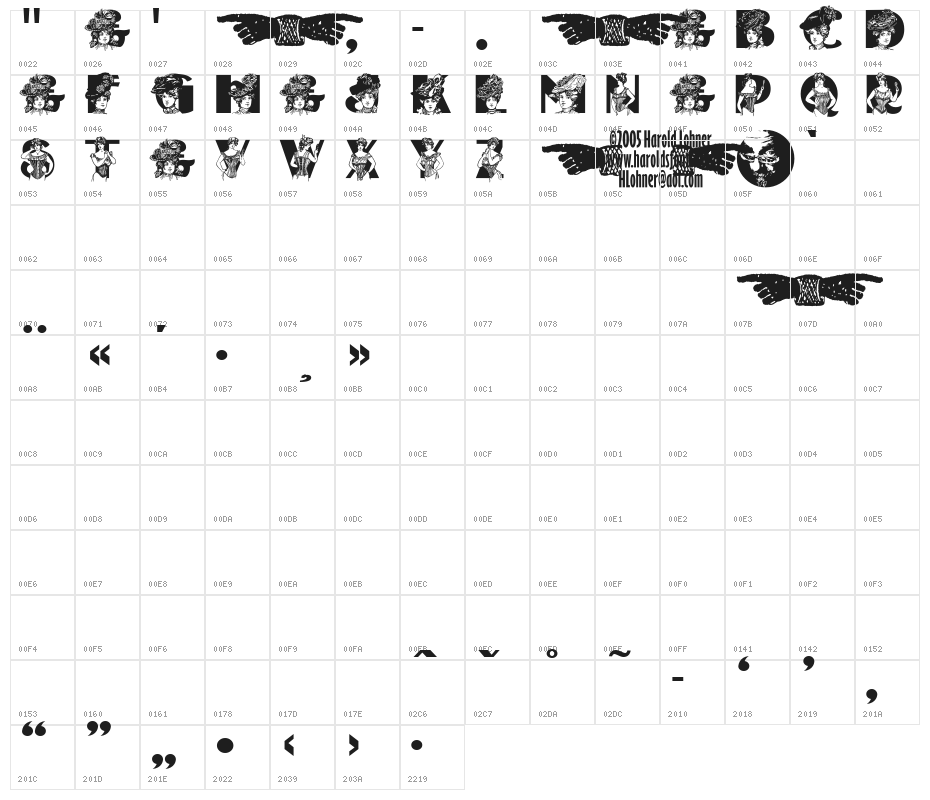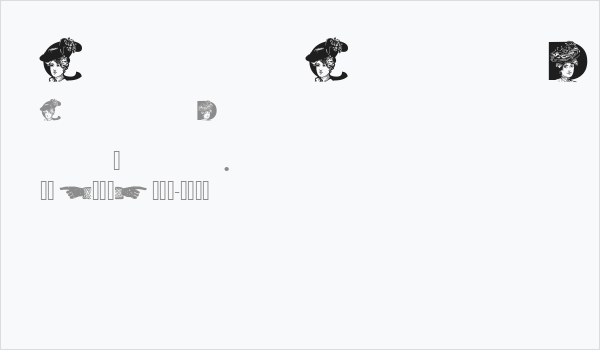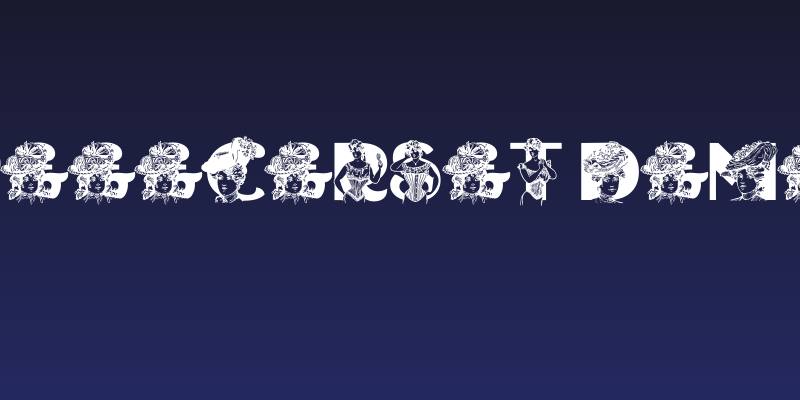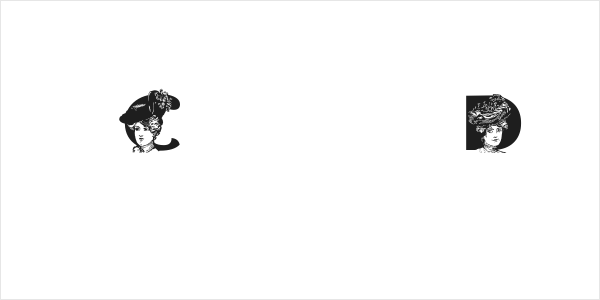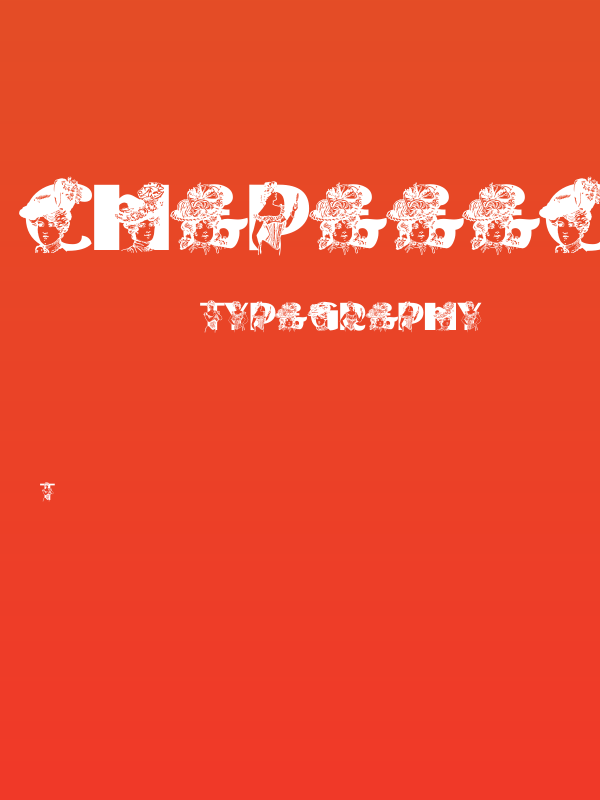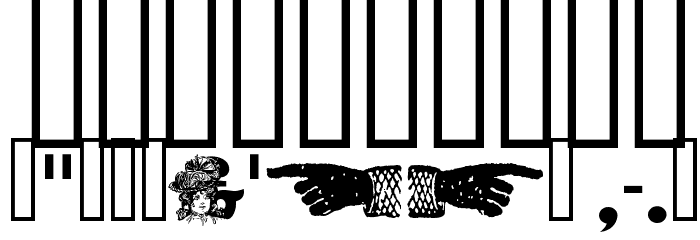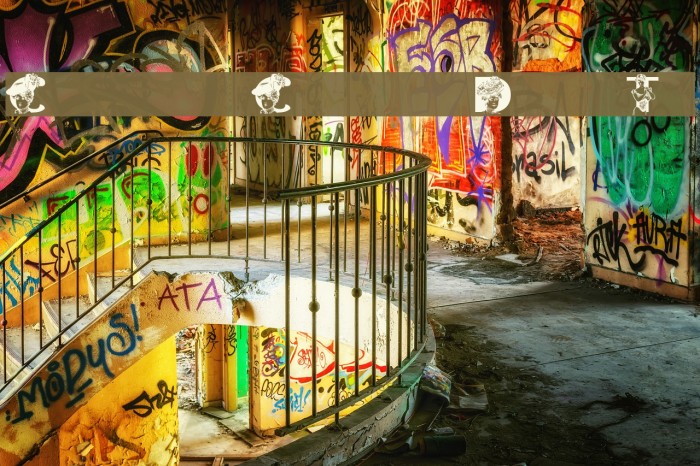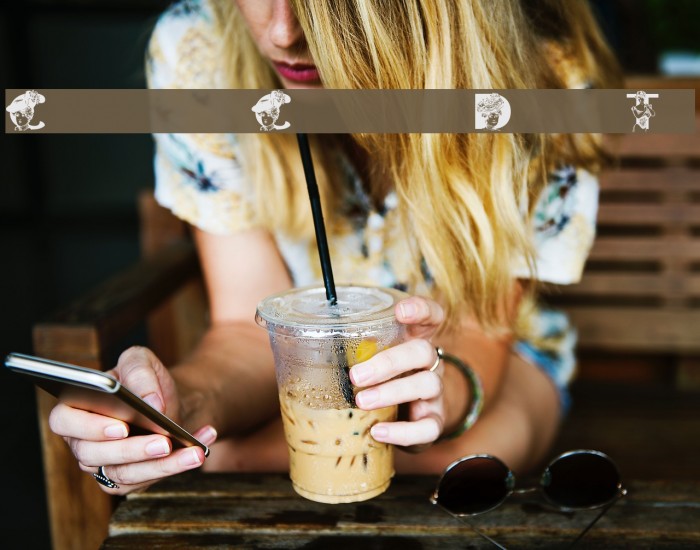
ChapeauCorset Demo Two Font
ChapeauCorset Demo Two Description
This decorative font features an intricate design where each character is adorned with vintage illustrations of women in corsets and hats, reminiscent of the Victorian era. The uppercase letters are particularly elaborate, incorporating detailed artwork that merges seamlessly with the letterforms. The lowercase letters and numbers are presented in a more minimalist style, using vertical lines and geometric shapes. Special characters include unique illustrations, such as pointing hands and corset designs, which add to the font's thematic consistency. The overall aesthetic is both nostalgic and artistic, making it a standout choice for projects that require a touch of historical elegance.
| Overall Style | Vintage |
| Use Case | Headlines, Logos, Decorative elements |
| Proposed Projects | Ideal for vintage-themed posters, theatrical event invitations, historical book covers, and decorative signage. |